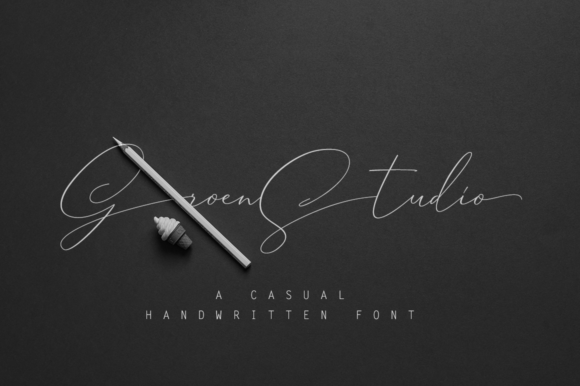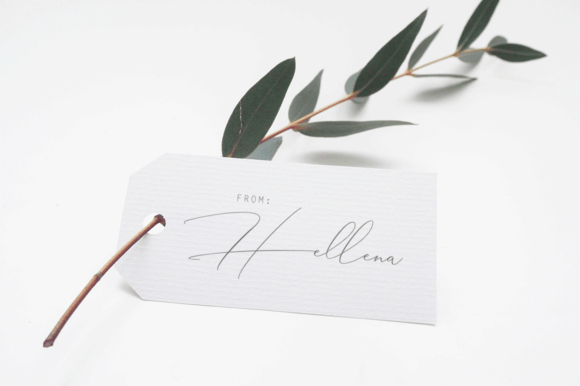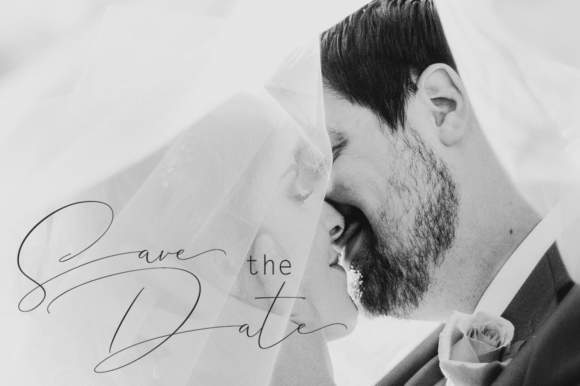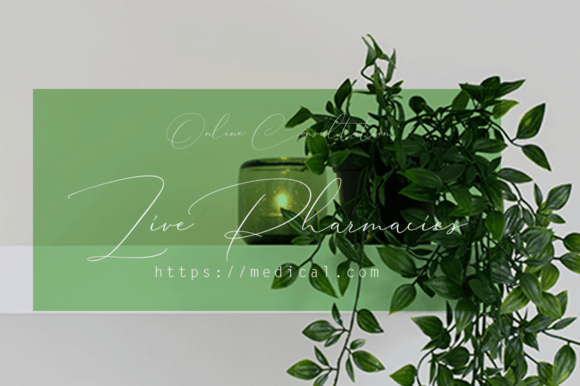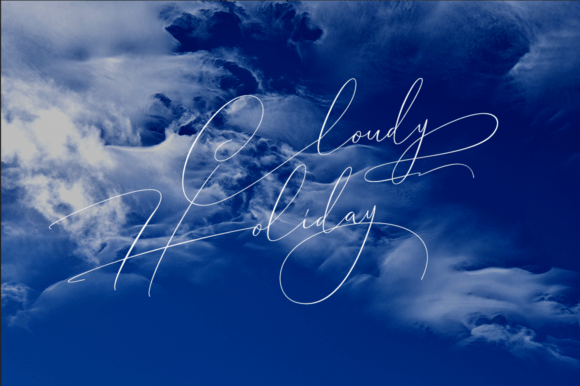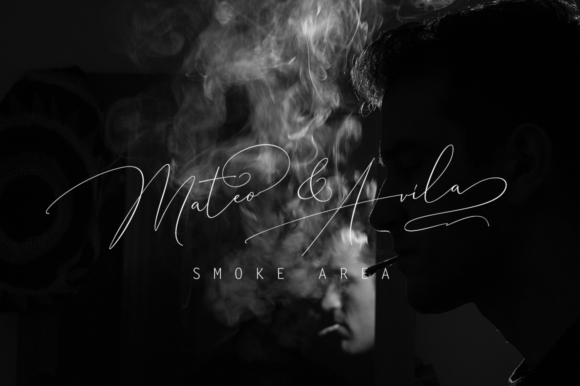
Groen Studio Font
About Groen Studio Font
**Groen Studio: A Handcrafted Handwriting Font for Authentic Designs**
Groen Studio is a uniquely crafted handwriting font that captures the essence of natural handwriting with its distinct characteristics. Here’s a closer look at the features and potential applications of Groen Studio:
1. **Handcrafted Authenticity:** Groen Studio’s handcrafted design imparts an authentic and natural feel to the characters. The irregularities in the strokes contribute to the charm of genuine handwriting.
2. **Invitations:** The font is well-suited for designing invitations for various occasions such as weddings, parties, and events. Groen Studio adds a personal and heartfelt touch to invitation designs.
3. **Signatures:** Use Groen Studio to create digital signatures that mimic the fluidity and uniqueness of handwritten signatures. This can be particularly useful for digital documents, emails, and official correspondence.
4. **Blogs and Social Media:** Incorporate Groen Studio into blog headers, titles, and social media graphics. The font’s organic and handwritten style can bring a warm and approachable feel to your online content.
5. **Business Cards:** Design unique business cards by featuring Groen Studio for your name or brand. The handcrafted aesthetic sets your business cards apart and conveys a personal touch.
6. **Product Brands:** Groen Studio is suitable for branding purposes, especially for products that aim to convey a handcrafted and authentic quality. Use the font for product labels, packaging, and promotional materials.
7. **Versatile Applications:** The font’s versatility allows it to be used across various creative projects. Whether you’re creating posters, flyers, or promotional materials, Groen Studio adapts well to different design contexts.
8. **Natural Flow:** The irregularities and natural flow of Groen Studio’s characters contribute to a visually interesting and unique appearance. This adds character to your designs and creates a distinctive look.
9. **DIY Projects:** Groen Studio can be an excellent choice for DIY projects and crafts. Whether you’re creating handmade cards, scrapbooking, or other craft items, the font adds an artistic and handmade touch.
10. **Stationery:** Design personalized stationery, including letterheads and notecards, with Groen Studio. Its handcrafted charm can elevate the design of your stationery and make it more memorable.
11. **Digital and Print Media:** Groen Studio is suitable for both digital and print media. Its legibility ensures clarity in communication, while its handcrafted style adds a unique touch.
12. **Emotional Connection:** The genuine and handcrafted style of Groen Studio fosters a sense of connection and authenticity, helping to establish an emotional connection with your audience.
Incorporate Groen Studio into your design projects to infuse them with the authenticity and warmth of handcrafted handwriting. Whether you’re creating invitations or building a brand identity, Groen Studio offers a unique and personal touch.